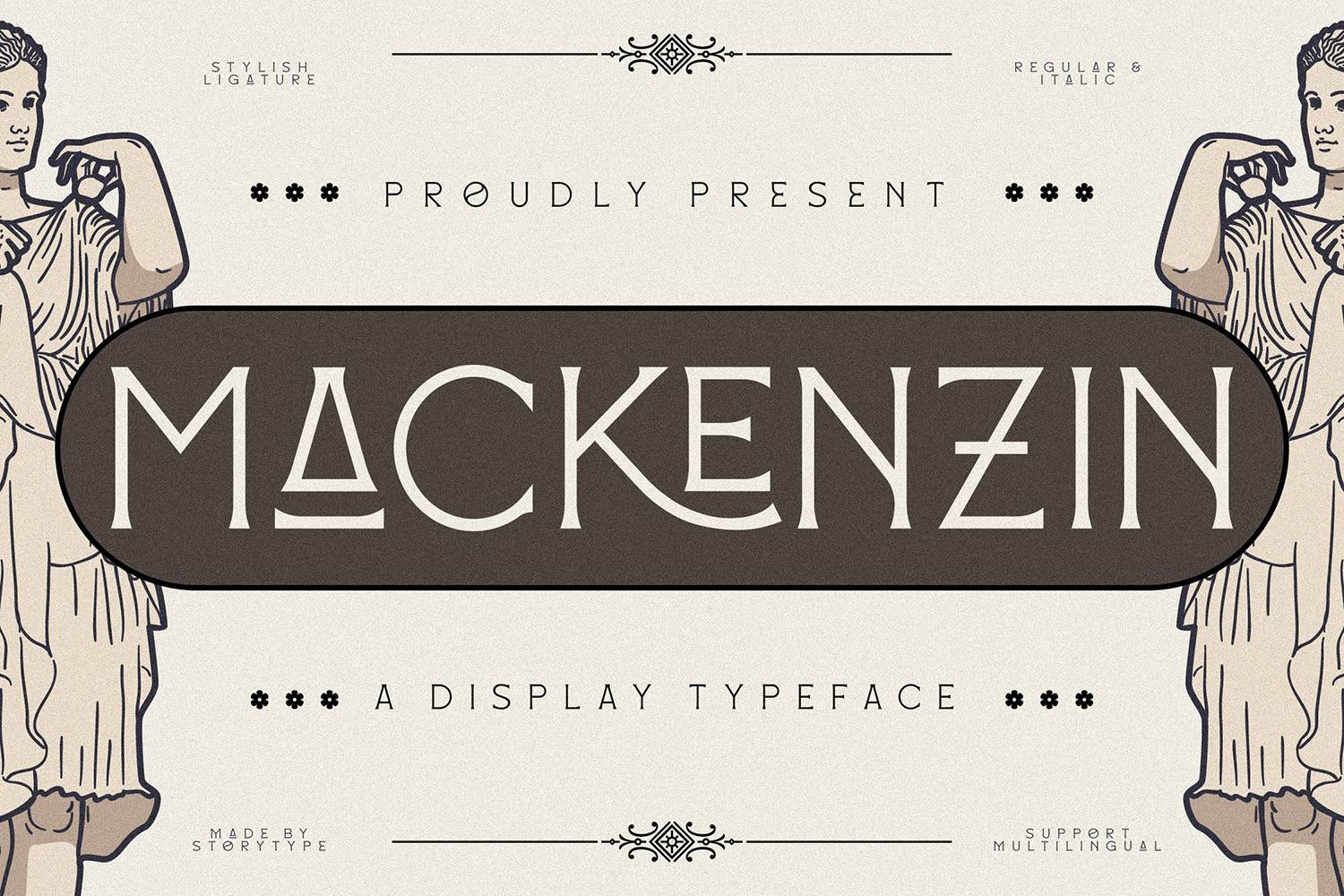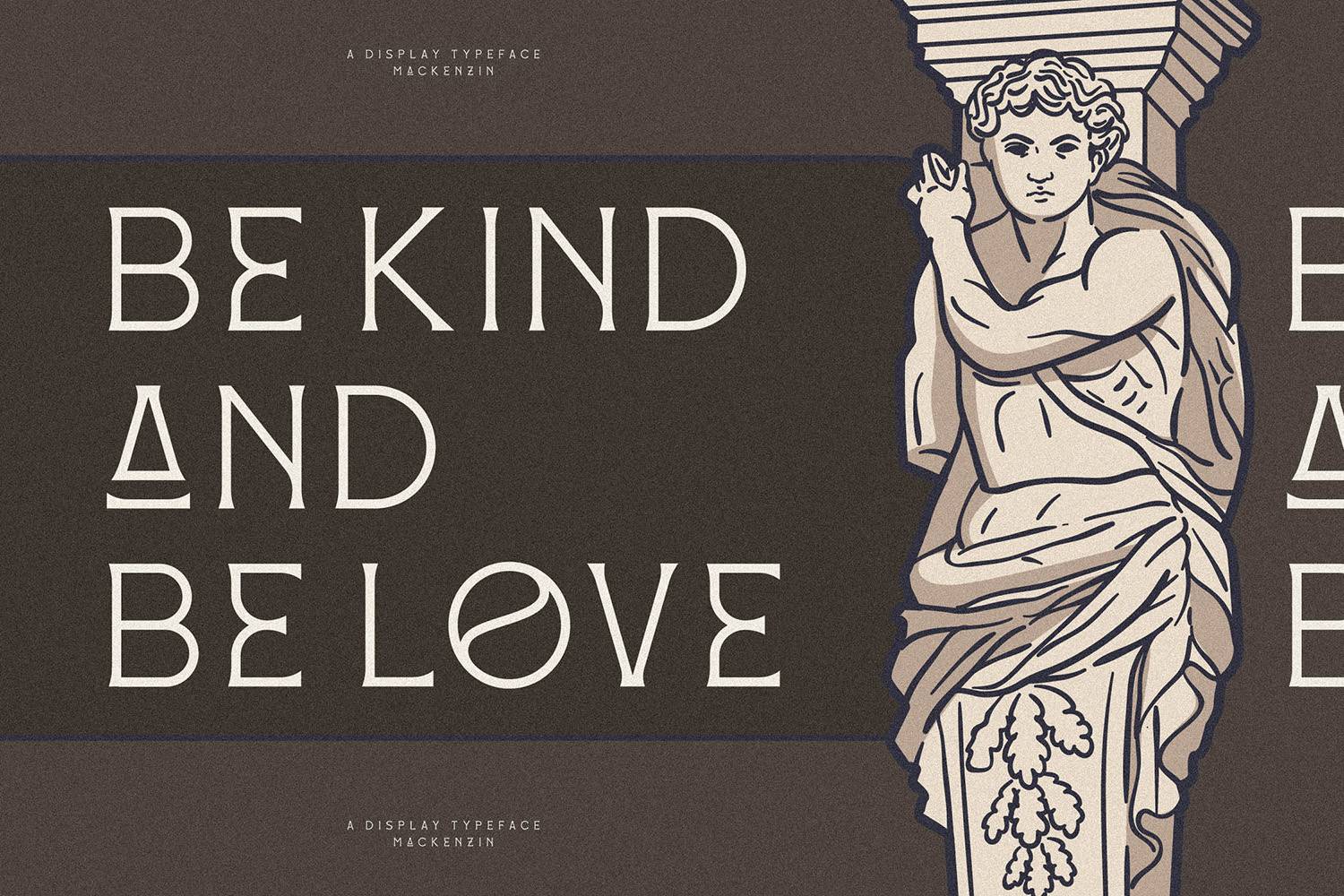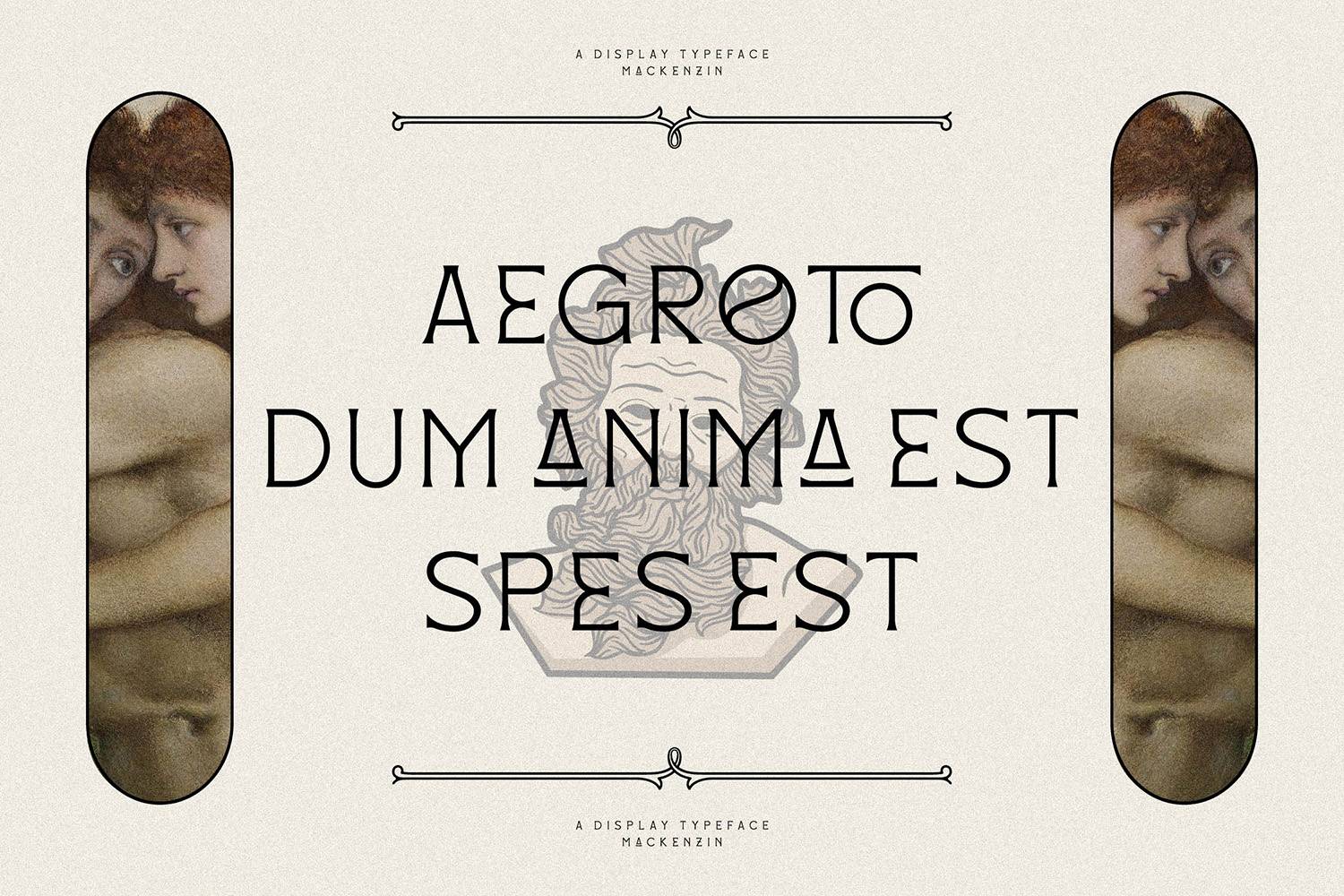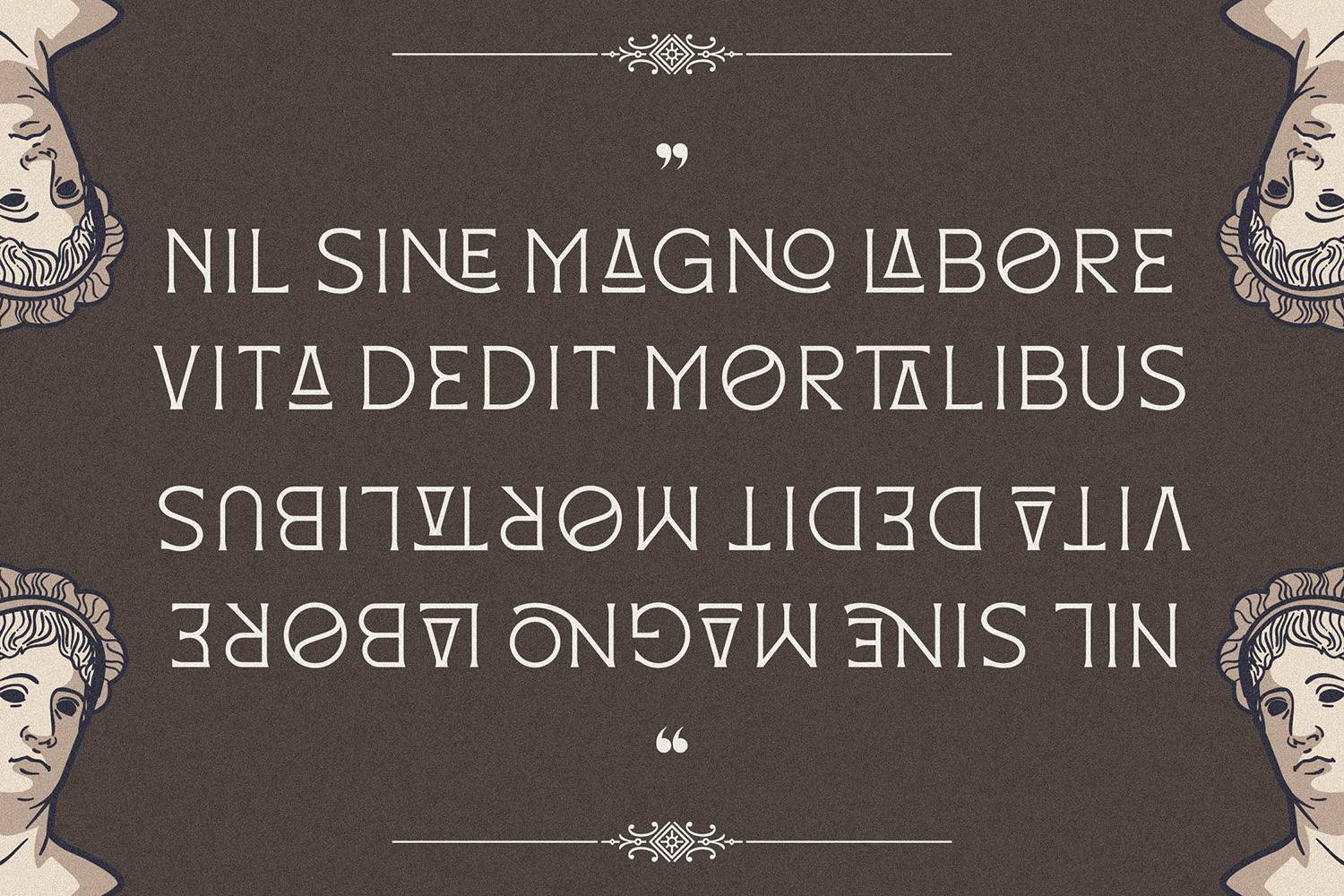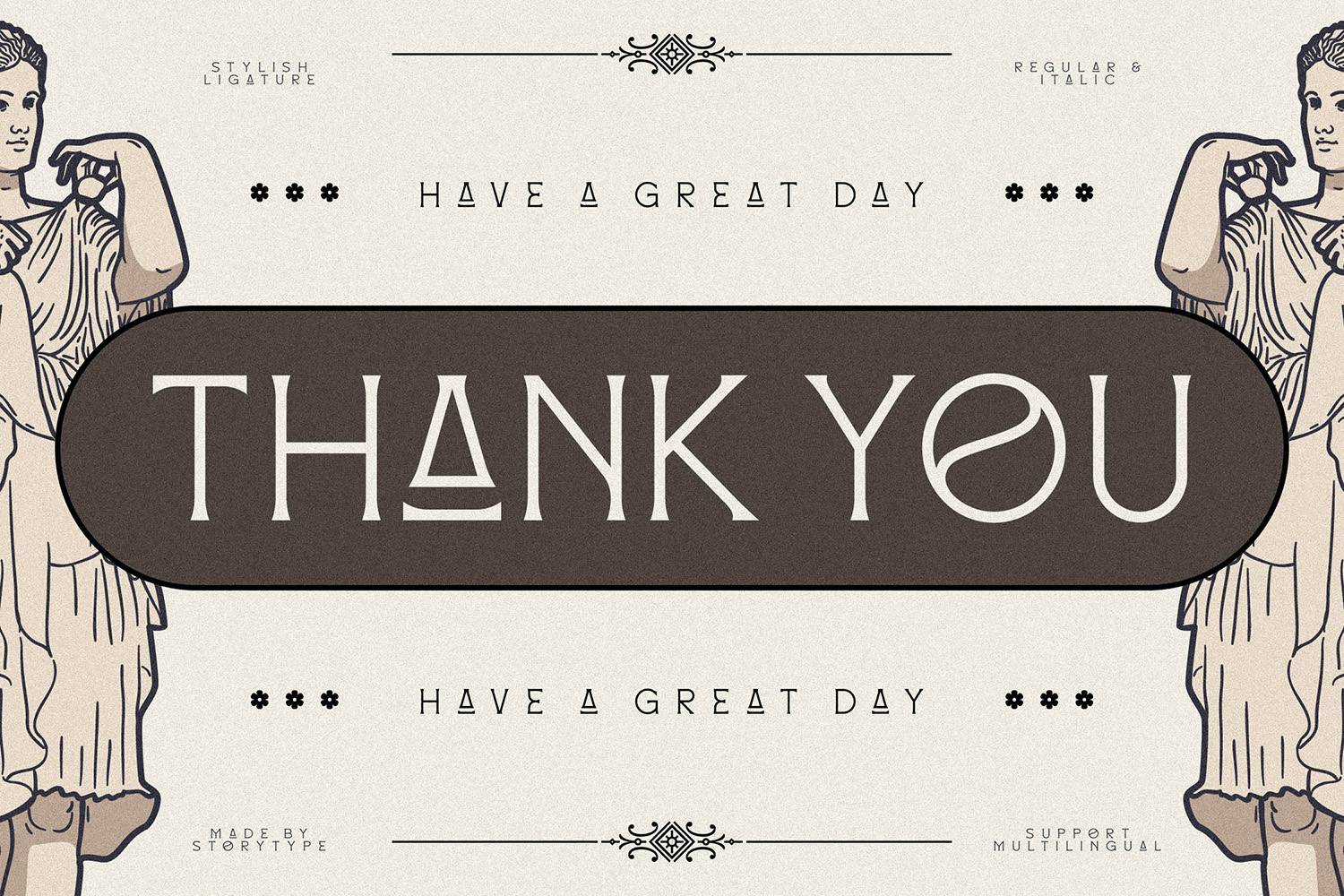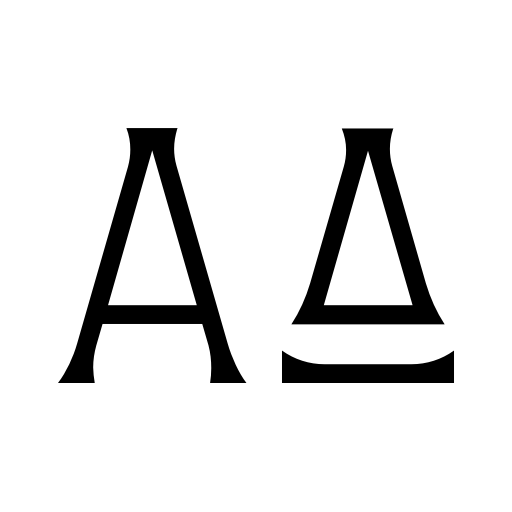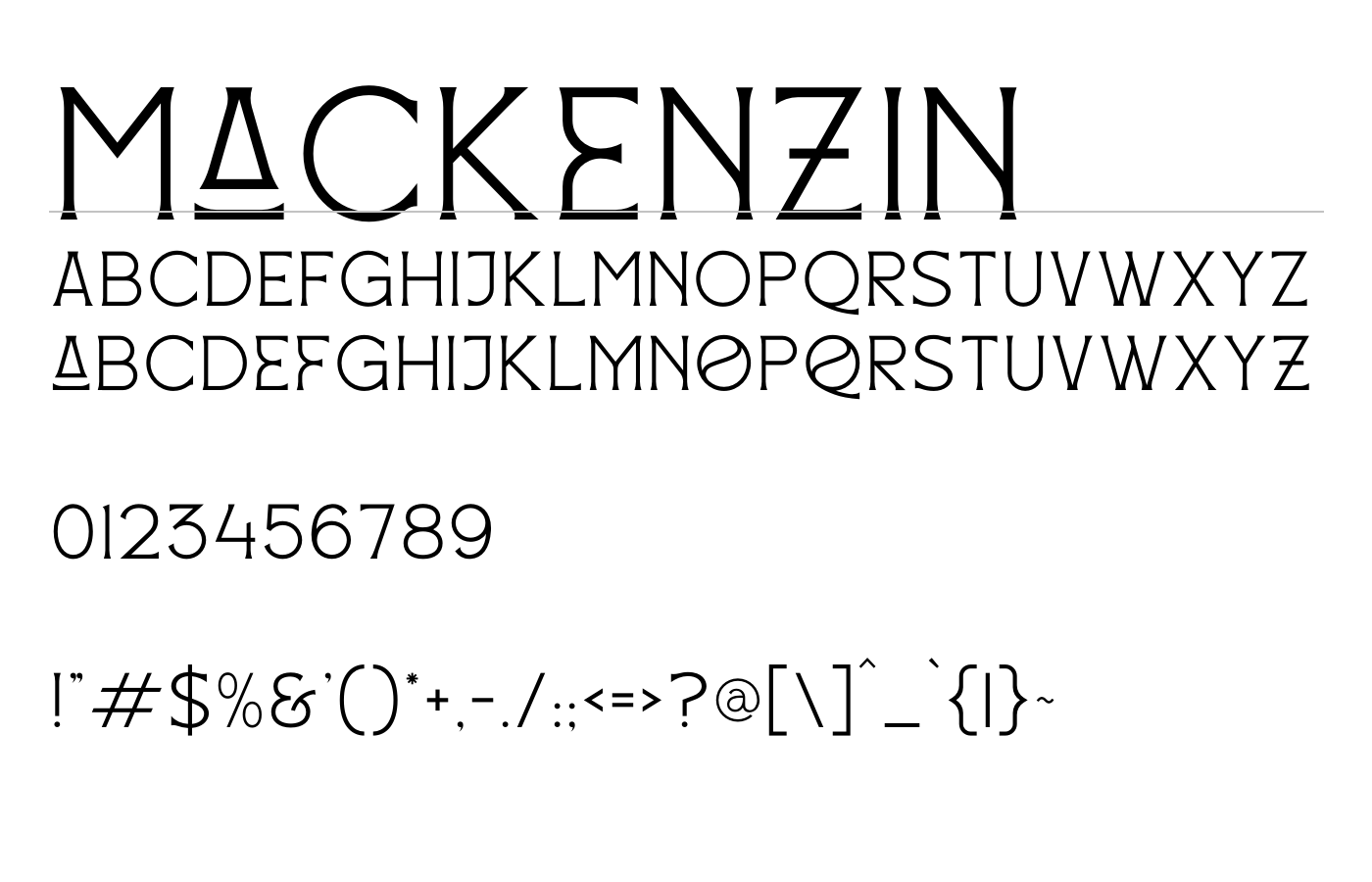
Mackenzin is a distinctive serif font with an art deco-inspired style, characterized by its sharp, geometric serifs and unusual letterforms that blend elegance with a modern twist. This font features a delicate weight with varied stroke contrast and an airy structure, making it ideal for luxury branding, editorial headlines, and creative logos where a unique, sophisticated look is desired. Its refined personality and strong visual impact suit projects that want to convey both classic charm and contemporary flair.
Mackenzin Font
About Mackenzin Font